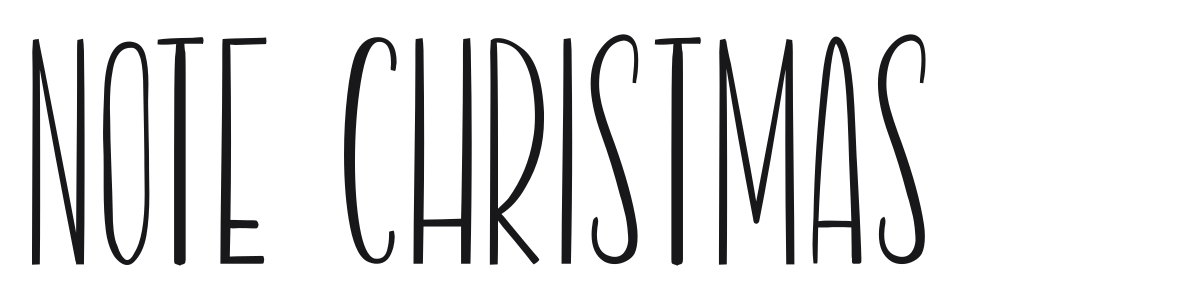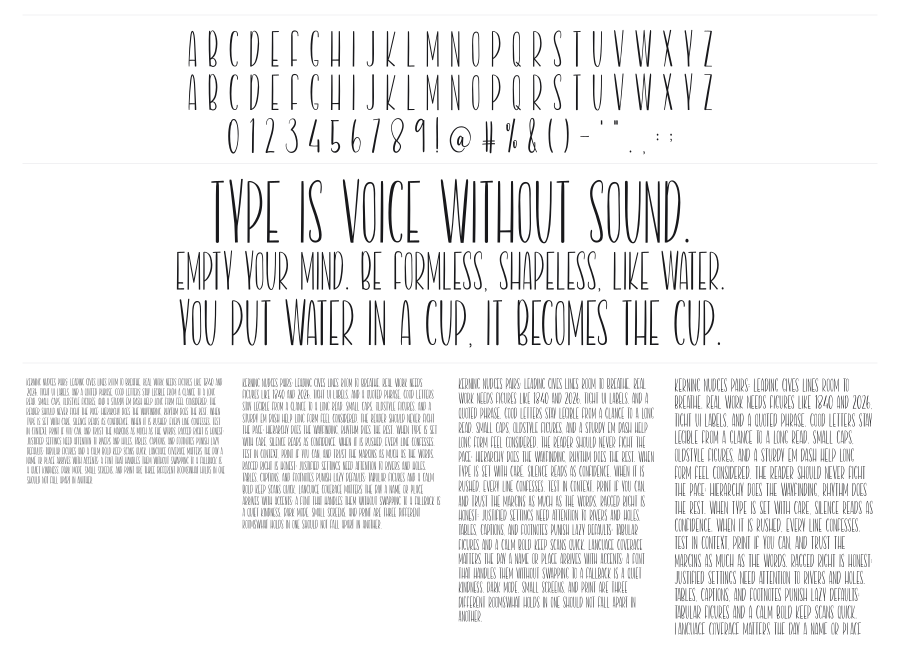
Note Christmas
Note Christmas is a tall, condensed hand-drawn sans with a festive, informal character. The slightly irregular strokes and rounded terminals give it a crafted, personal warmth that works well on holiday packaging, greeting cards, and seasonal social media graphics. It's light enough to stack at large sizes without feeling heavy.